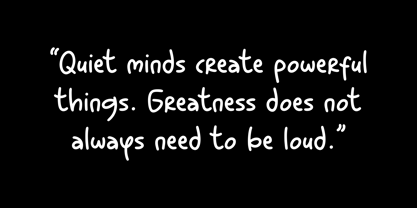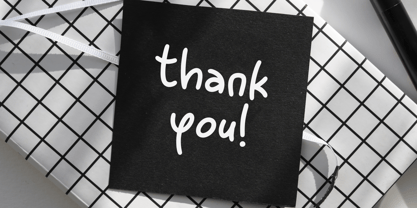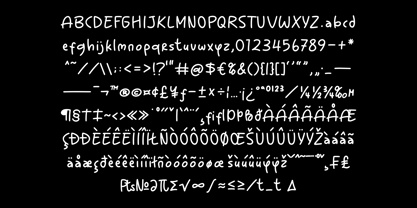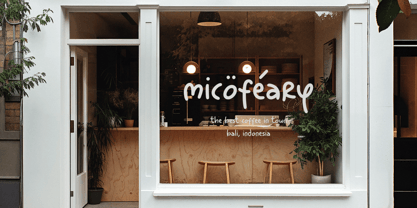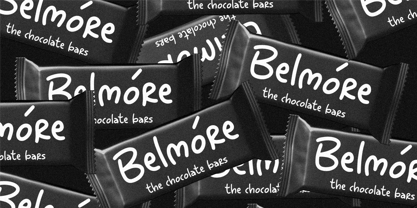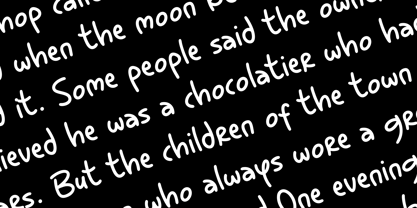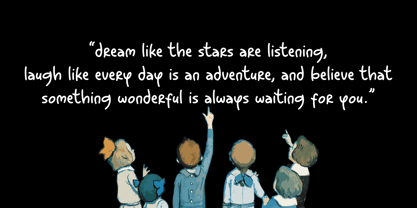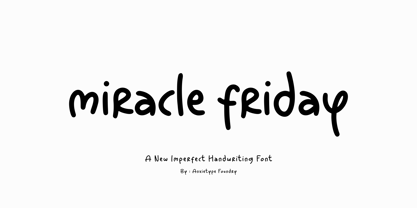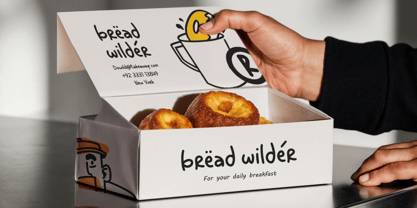
Miracle Friday
by Anxietype Foundry
The Miracle Friday Font Family was designed by Bias Surya Buana, Annas Rifky Anhar and published by Anxietype Foundry. Miracle Friday contains 1 styles. More about this family
Introducing Miracle Friday Display Font, a distinctive creation by Anxietype Foundry that captures the authentic charm of imperfect handwriting and turns it into a versatile display typeface. With its naturally uneven strokes, playful rhythm, and handcrafted personality, Miracle Friday brings a warm and human touch to every design.
Perfectly suited for coffee shop branding, food and beverage identities, Korean food restaurants, café menus, packaging, labels, logos, signage, and lifestyle brands, this font adds a casual yet memorable character to visual identities. It also works beautifully for t-shirt designs, stickers, social media graphics, quotes, posters, and creative packaging.
Embrace the imperfect beauty of handwriting with Miracle Friday, a font designed to make every word feel personal, authentic, and full of character.